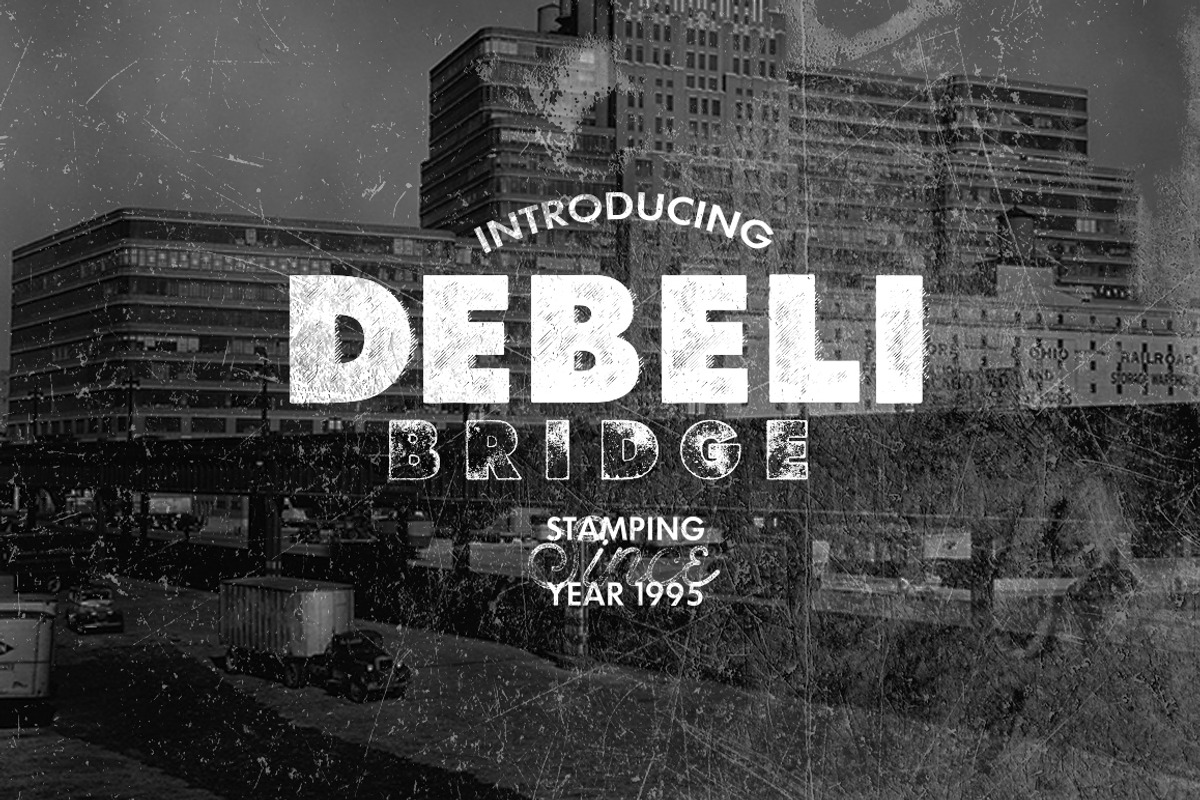
Debeli 2 Typeface
Debeli 2 Typeface by Leonard Posavec is a font selected for branding, posters, packaging, typography.
Why Debeli 2 Typeface is worth a look
Debeli 2 Typeface by Leonard Posavec fits naturally into Branding, posters, packaging, typography.